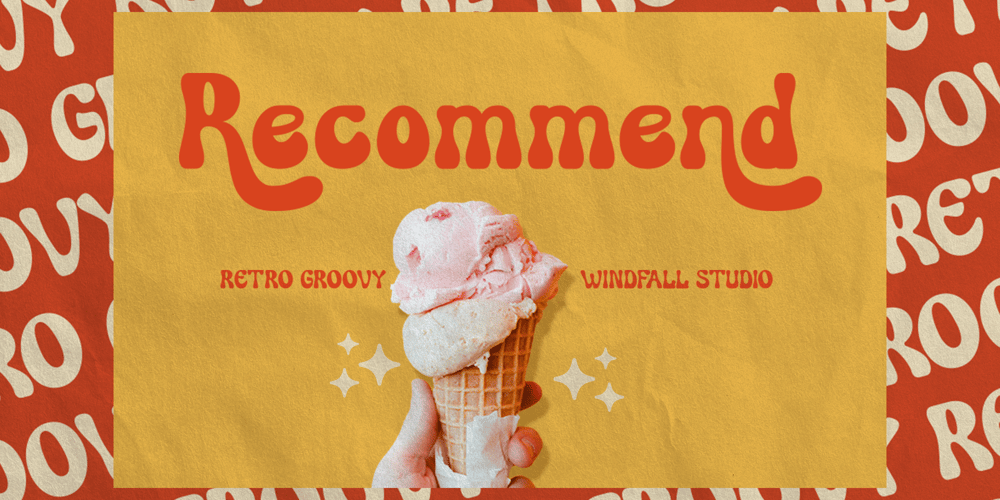
Recommend Font Family was designed by Anggia Putri Premitasari and published by Windfall Studio. Recommend contains 1 styles and family package options. Recommend font embodies a harmonious blend of retro aesthetics and modern design principles. Drawing inspiration from vintage typography, Recommend infuses it with contemporary elegance, resulting in a font that strikes a perfect balance between old and new. With its clean lines and timeless charm, Recommend adds sophistication and versatility to any project, whether it’s for branding, headlines, or creative designs.